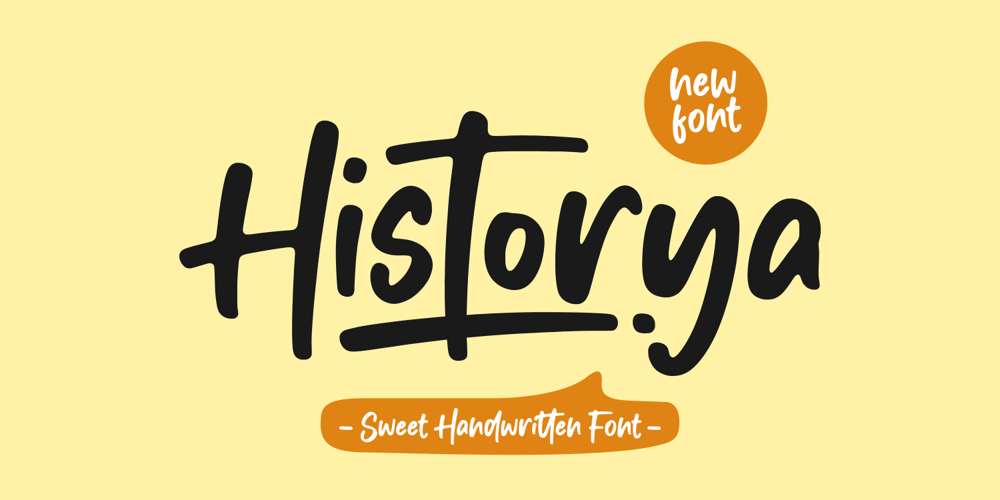
Historya Font Family was designed by Andre Bima Falah Rabbani and published by Atharuah Studios. Historya contains 1 styles and family package options. Introducing Historya; A sweet handwritten font! Bold and cheerful fonts are guaranteed to beautify your designs and products.What’s Included:Historya comes with a single font file that includes uppercase, lowercase, numbers, punctuation, and multilingual support. Historya also has alternative letters in each uppercase and lowercase and has a swash that you can access in alternative numbers 1-9.That’s it! I hope you enjoy it.You can also say hello to me on Instagram: https://www.instagram.com/atharuah_Thank You!